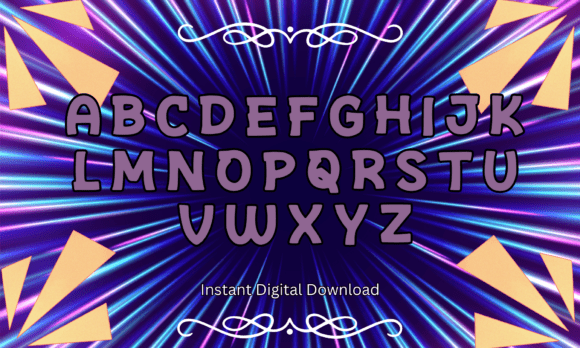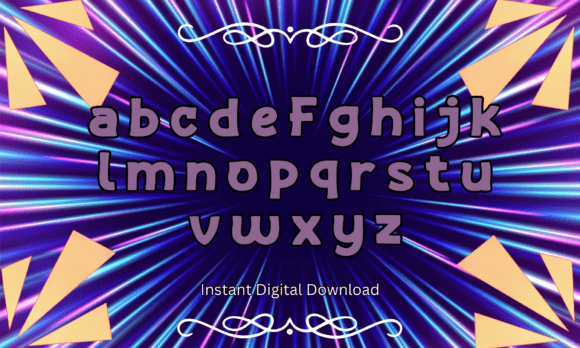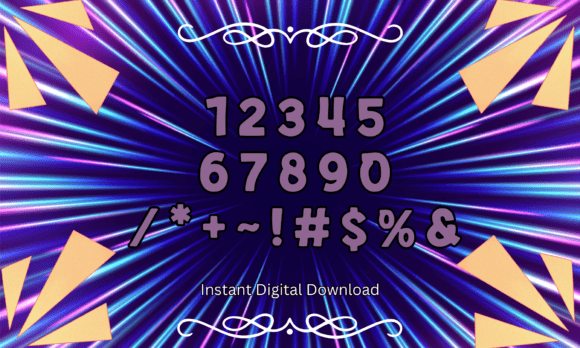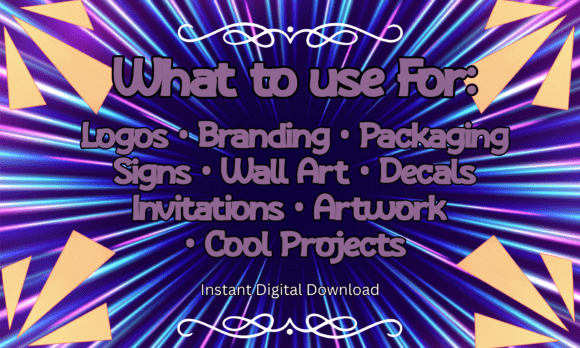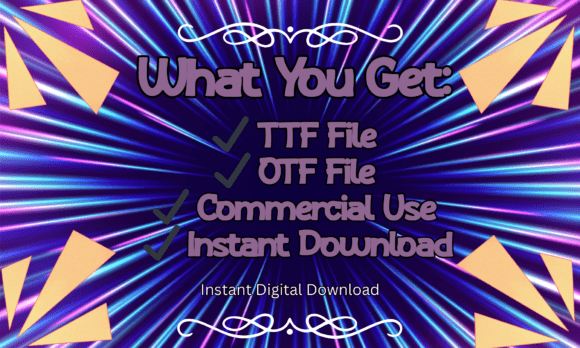
Bringing Anime Energy to Your Designs: A Deep Dive into the Anime Title Font
Have you ever been in the middle of a design project, and suddenly, you’re struck by a creative block? You’re trying to create an eye-catching title or thumbnail, but the font just isn’t cooperating. I recall a project where I was tasked with designing a manga-style poster for a client’s anime-inspired business. The catch? It had to scream “anime” but still be professional and readable. That’s when I stumbled upon the Anime Title Font, and it was love at first sight! ✨
First Impressions: What I Love About the Anime Title Font
The Anime Title Font is a playful, rounded display typeface that embodies the vibrant spirit of manga covers, anime intros, and Japanese pop culture. Here are some features that make it stand out:
- ✅ Uppercase and Lowercase Letters: A full range of letters (A-Z and a-z) to help you create titles and text with ease.
- ✅ Numbers and Punctuation: Includes numbers (0-9) and a variety of punctuation marks and symbols to complete your designs.
- ✅ Bold, Rounded Lettering: The font’s bold and rounded style gives it a distinctive anime look that’s hard to resist.
- ✅ Readability: Despite its playful nature, the font maintains strong readability, even at smaller sizes.
A Few Quirks to Consider
No font is perfect, and the Anime Title Font has a few minor quirks:
- ⚠️ Limited to Display Use: Given its bold nature, this font is best suited for display purposes. It might not be the best choice for body text.
- 🤔 Glyph Variety: While it includes a good range of characters, some designers might find the selection of special characters or glyphs a bit limited for their needs.
The Inspiration Behind the Font
The Anime Title Font was inspired by the vibrant world of Japanese pop culture, particularly the energetic and colorful realm of anime and manga. The designer aimed to capture the essence of what makes anime titles so captivating—the boldness, the playfulness, and the sense of adventure. This font is a tribute to the dynamic visuals that have become synonymous with Japanese media.
- Q: Does the font include any special characters?
- A: The font includes a standard set of characters, numbers, and punctuation. For specific glyphs or special characters, you might need to explore other fonts or alternatives.
- Q: Is the Anime Title Font suitable for body text?
- A: While it’s primarily designed for display use, its readability makes it a potential candidate for short paragraphs of body text, though it might not be ideal for lengthy content.